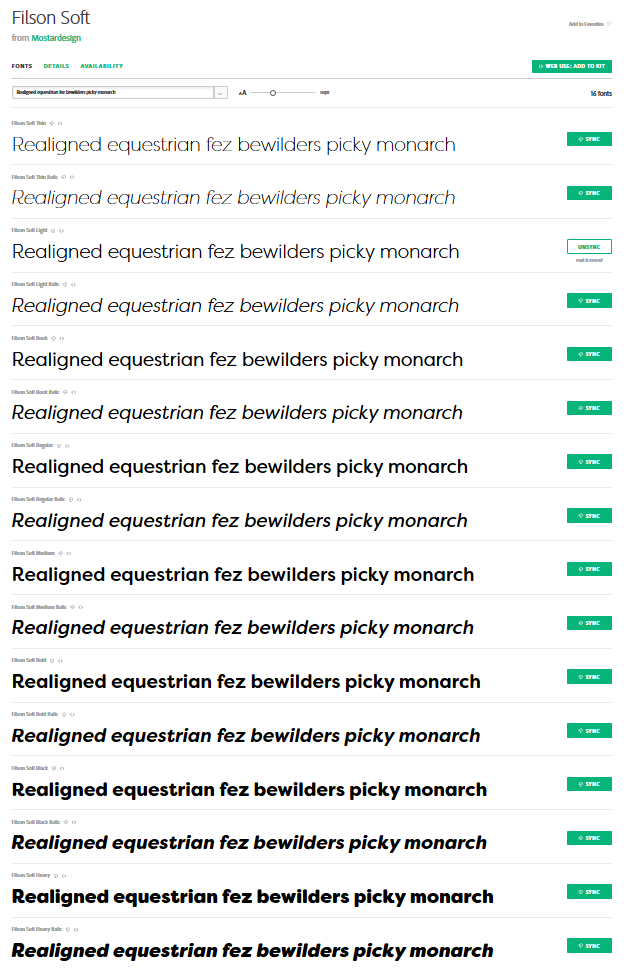
I have read where it says highlight the layer and hit stroke but stroke is always grayed out. Maybe I'm only thinking I'm highlighting the layer and not really. I just don't get it
Are you trying to apply the stroke option which is available in Layer Style panel?
You can tell when a layer is highlighted because it will have a gray tint, like this:
You can also tell by looking at the title bar that has the name of the file, and in parenthesis the name of the layer will be displayed.
The layer should also be visible (should have an eye icon next to it).
The Stroke command under the Edit menu will be grayed out but the Stroke layer style will be available.
A purist would be having a major anxiety attack at the idea of adding weight to a carefully designed font by stroking it. That's not to say that we don't all do exactly that sometimes. However, if you made the jump to Creative Cloud, you would have access to the TypeKit fonts, and lots of those fonts come in a wealth of different weights. Filson Soft, for instance, has 16 different weights!